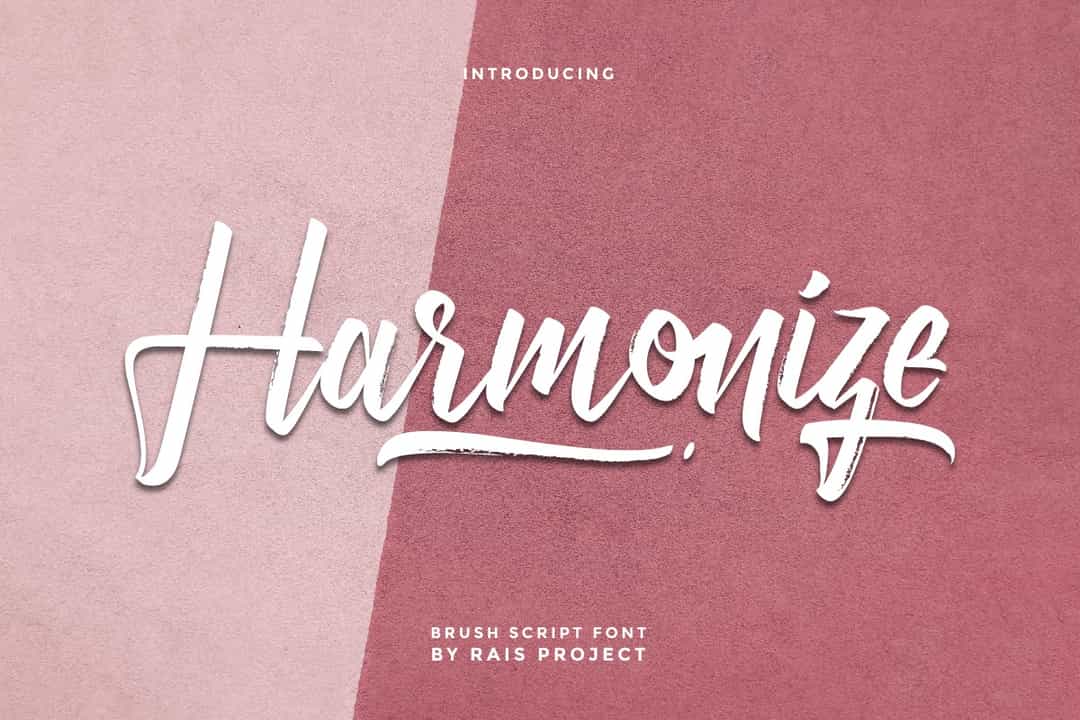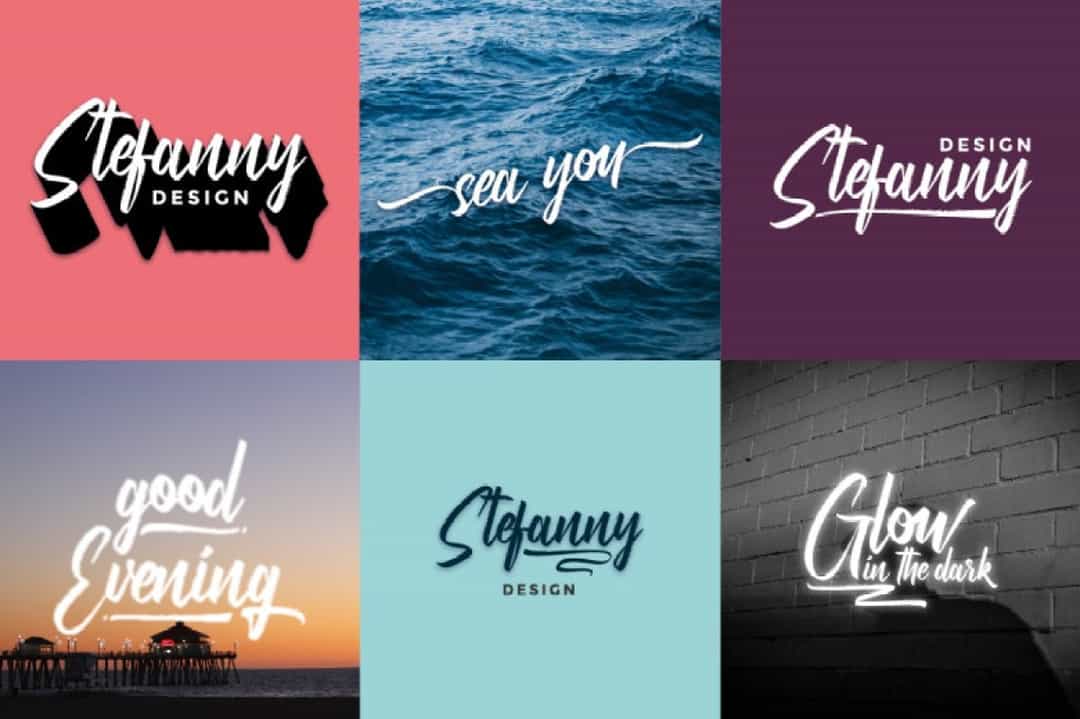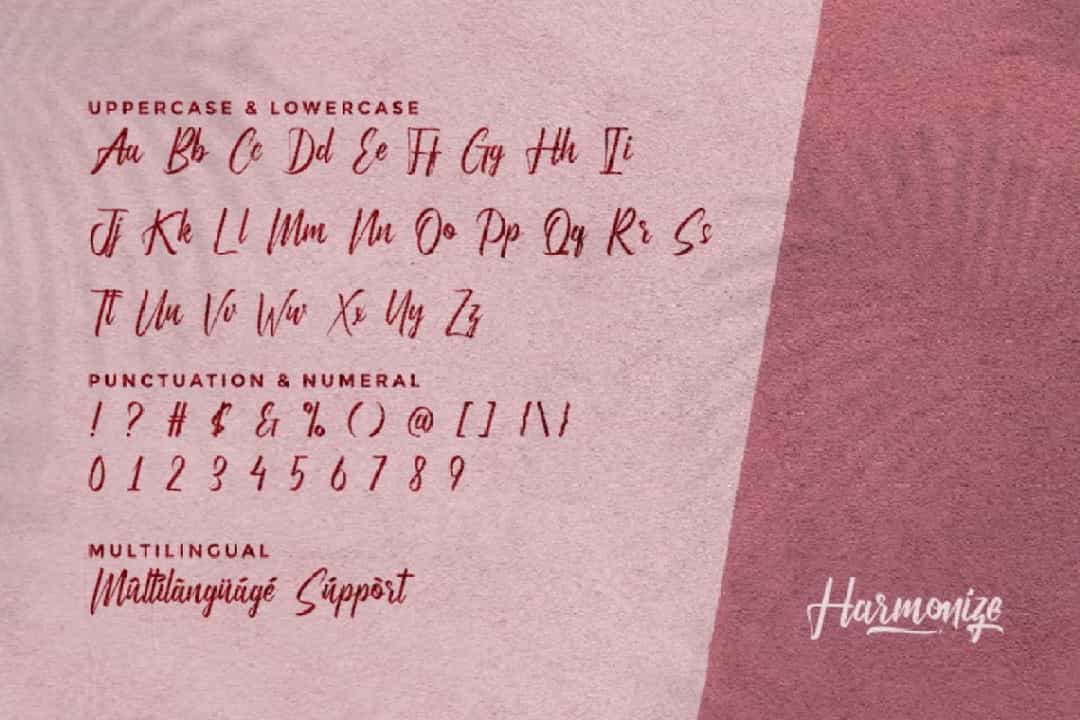
Harmonize is a modern elegant display typefaces with complex character shapes appeared from the author’s brush. Suitable for wedding, events, promotions branding advertising magazines shopping signage invitations stationery social media post packaging design product label watermark photography and any project that needs to have a handwriting calligraphy look!